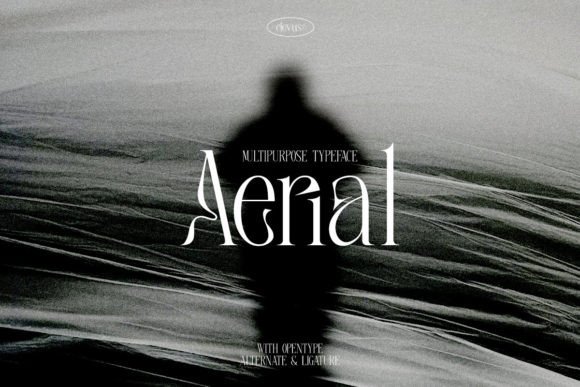
Discover the Elegance of Aerial Font: A Timeless Choice for Luxury Designs
I’ll never forget the moment I stumbled upon the perfect font for a high-end branding project. I was working late, sipping on cold coffee, and scrolling through font after font, trying to find that one that exuded luxury and sophistication. And then, I met Aerial Font. Its thin, tapered serifs and elongated letterforms immediately caught my eye, and I knew I had found the perfect fit. In this article, I’ll share my experience with Aerial Font, its features, and how to make the most of it in your designs.
A Personal Review: What I Love About Aerial Font
Aerial Font is a stunning serif font that embodies the beauty of classic design. Here are some things I love about it:
• ✨ Timeless elegance: Aerial Font’s thin, tapered serifs and elongated letterforms create a sense of luxury and sophistication, making it perfect for high-end logos, editorial layouts, and upscale packaging.
• ✅ PUA encoded: This font is PUA encoded, which means you can access all the amazing glyphs and ligatures with ease!
• 💫 Versatile: Aerial Font is suitable for a wide range of design projects, from branding and advertising to editorial and packaging design.
While Aerial Font is an amazing font, there are a few things to keep in mind:
• ⚠️ Legibility at small sizes: Like many serif fonts, Aerial Font may become less legible at very small sizes. It’s best used at larger sizes, such as headings or titles.
• 🤔 Glyph compatibility: Make sure to check the font’s compatibility with your design software to ensure you can access all the glyphs and ligatures.
The Backstory of Aerial Font
Aerial Font was inspired by the classic designs of the Renaissance era. Its creator aimed to craft a font that embodied the beauty and elegance of that time period. With its thin, tapered serifs and elongated letterforms, Aerial Font is a perfect representation of luxury and sophistication.
What is Aerial Font? Aerial Font is a stunning serif font that exudes luxury and sophistication. Its thin, tapered serifs and elongated letterforms create a sense of timeless elegance.
Is Aerial Font PUA encoded? Yes, Aerial Font is PUA encoded, which means you can access all the amazing glyphs and ligatures with ease!